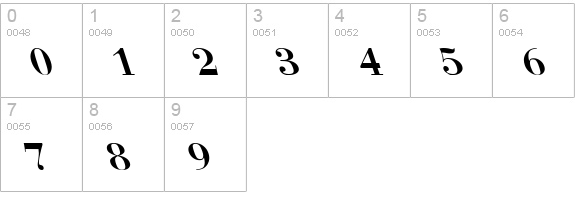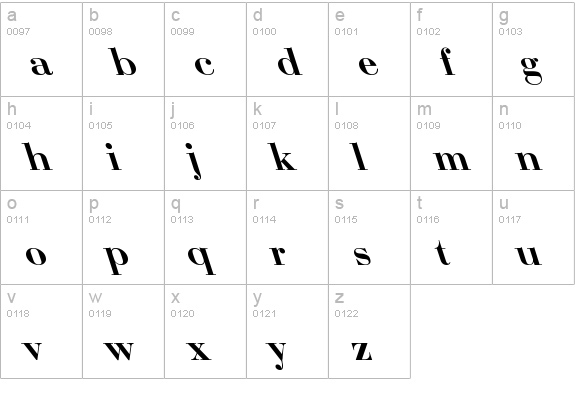
Bodoni Bold Lefty Font Details
Bodoni Bold Lefty is a strong, high-contrast variant in the Bodoni typeface family \xE2\x80\x94 well suited to headlines, attention-grabbing titles, and strong calls-to-action.
Bodoni Bold Lefty font is a striking and elegant typeface with a distinctive left-handed slant, adding a unique flair to any design project. Its bold strokes and sharp serifs exude confidence and sophistication, making it perfect for headlines, titles, and branding materials. The font's clean lines and modern aesthetic make it a versatile choice for both print and digital applications. Best of all, Bodoni Bold Lefty font is available for free download at FontsMarket.com. Whether you're a designer looking to add a touch of boldness to your creations or a typographer seeking a fresh take on traditional Bodoni style, this font is a must-have in your collection. Embrace the boldness of Bodoni Bold Lefty and elevate your designs to new heights of creativity and style.